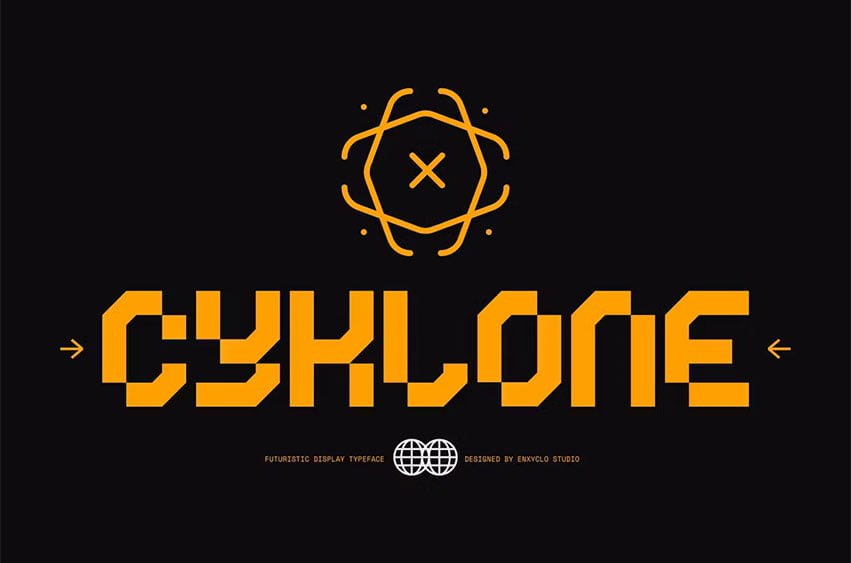
Cyklone Font Futuristic Cyberpunk Techno Display Font is futuristic display font. The design of typeface will make your project more powerful and inspiring. With this beautiful futuristic display font, absolutely you can make your project stand out from the rest. See the previews above to get some inspiration on how to use them.